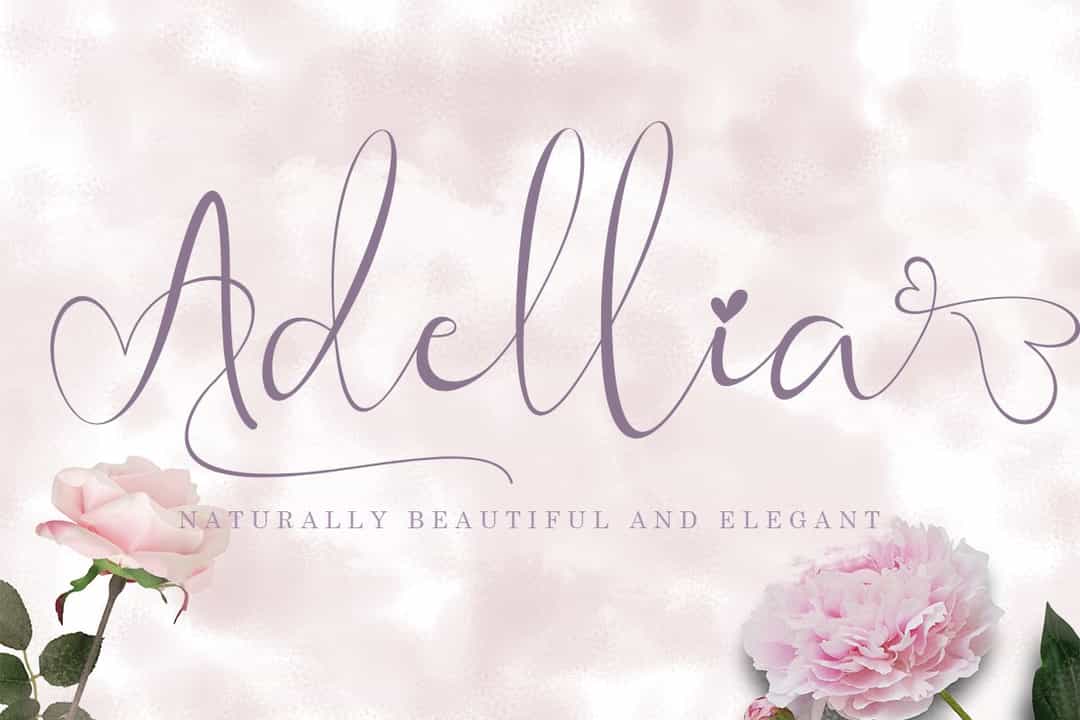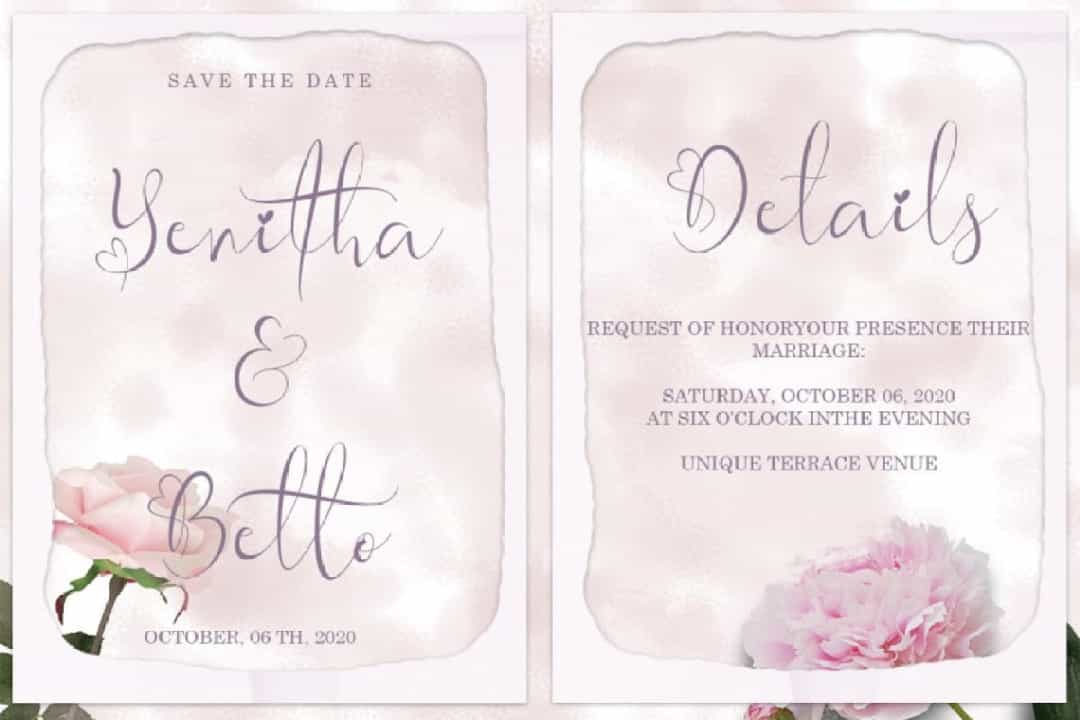
Adellia is a exquisite script font with romantic feel and can go well in any project including wedding related designs. The font is very special and of high quality which will give your invitations, branding signatures, logos, promotions of your company, social media posts, status quotes etc. a professional look.